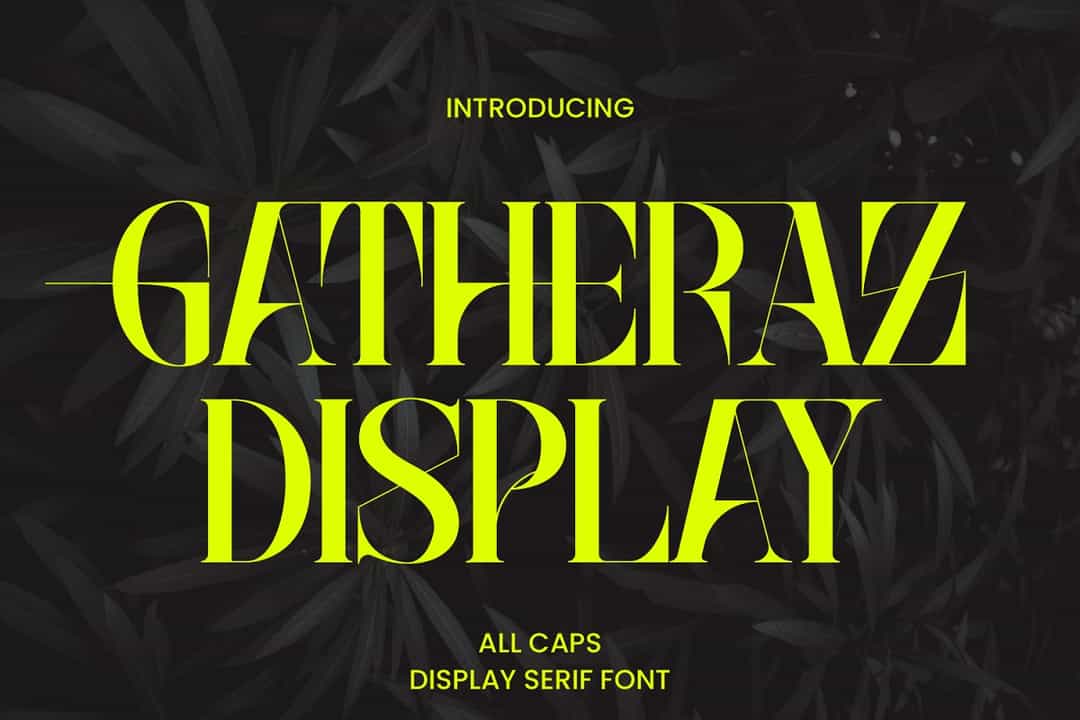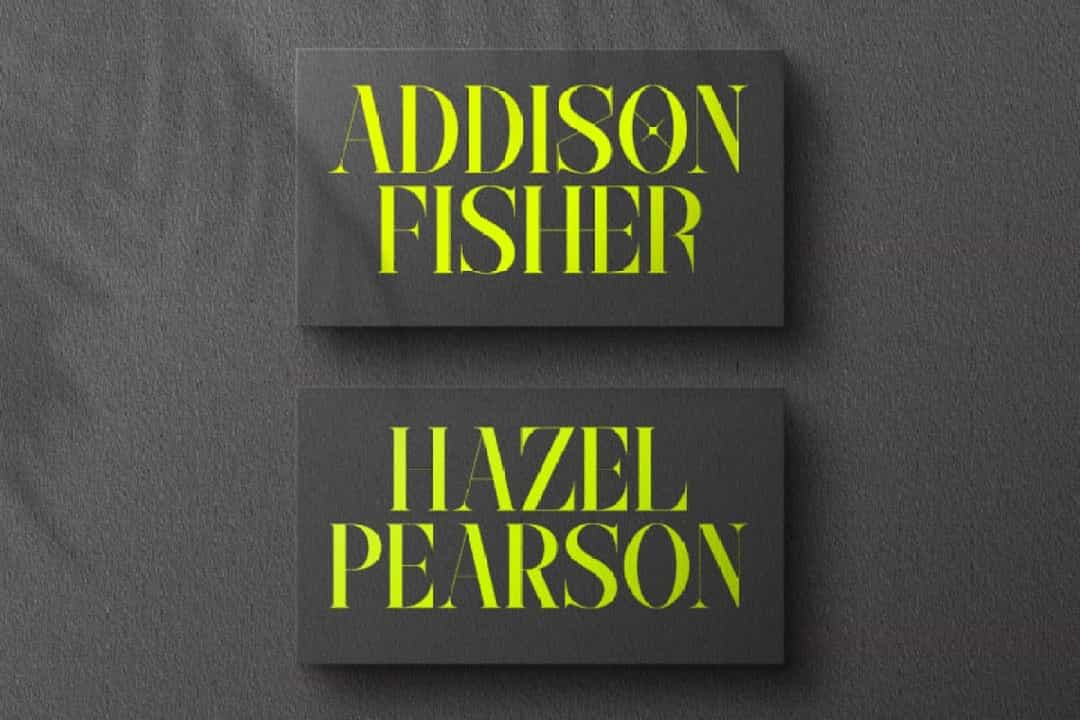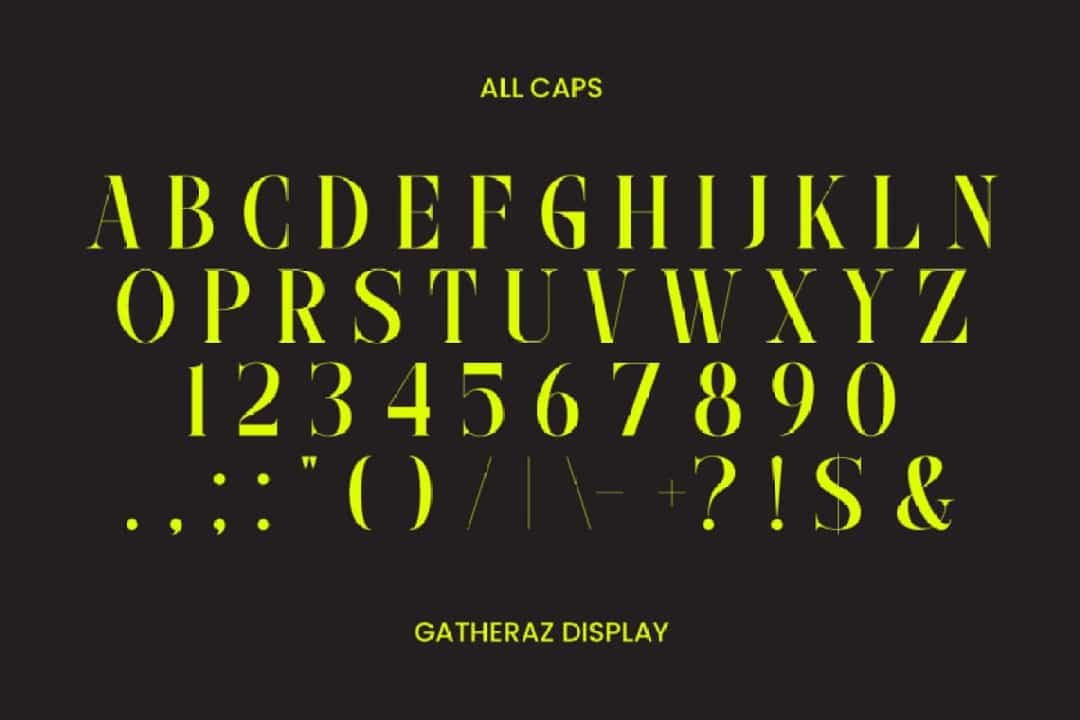
Gatheraz Display Font is an exquisite example of modern elegance. Its stylish yet simple design makes it the ideal choice for branding, logos, invitations, stationery designs, wedding proposals and social media posts alike. Plus, Gatheraz is PUA encoded so that all glyphs can be accessed easily.